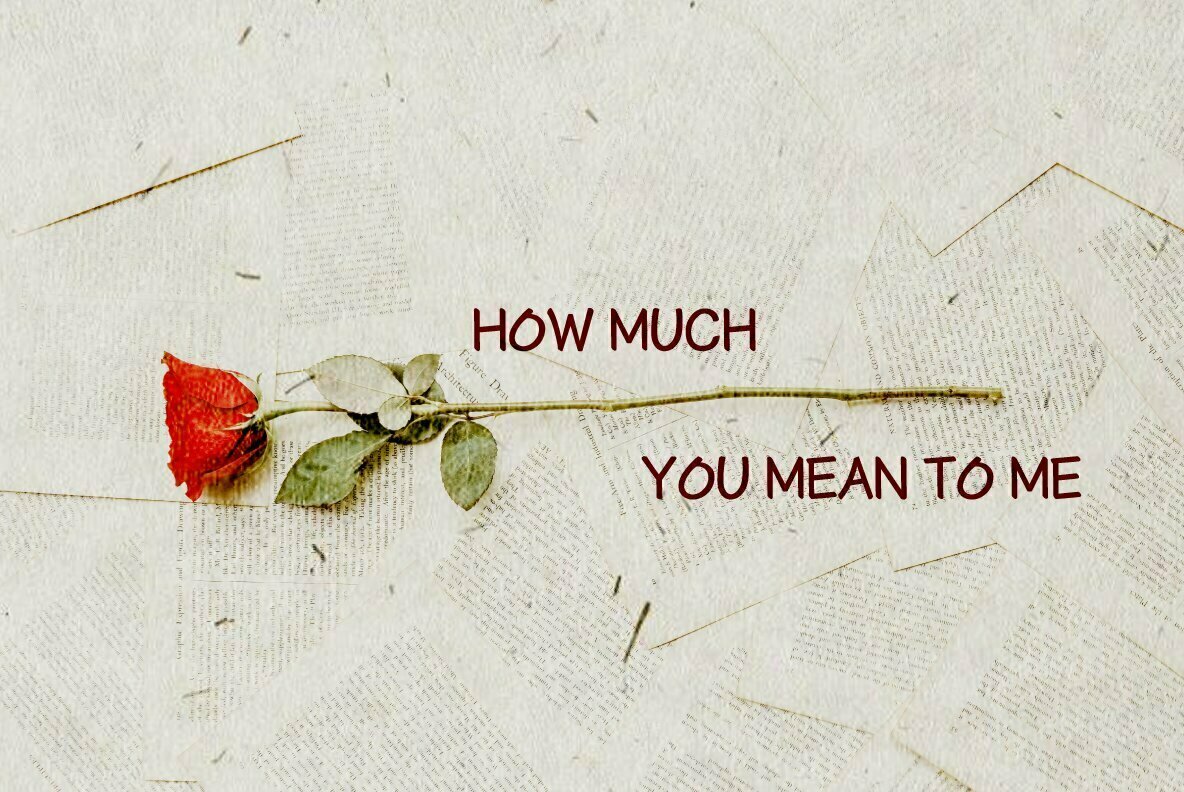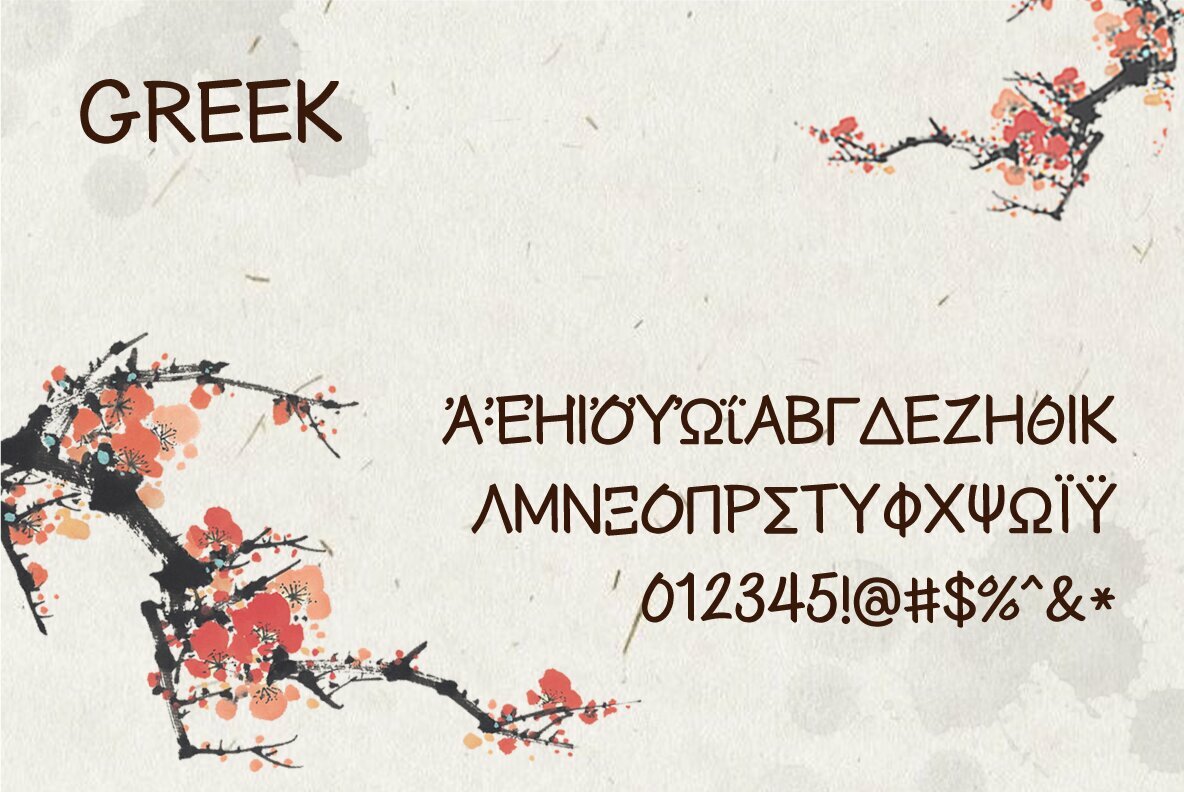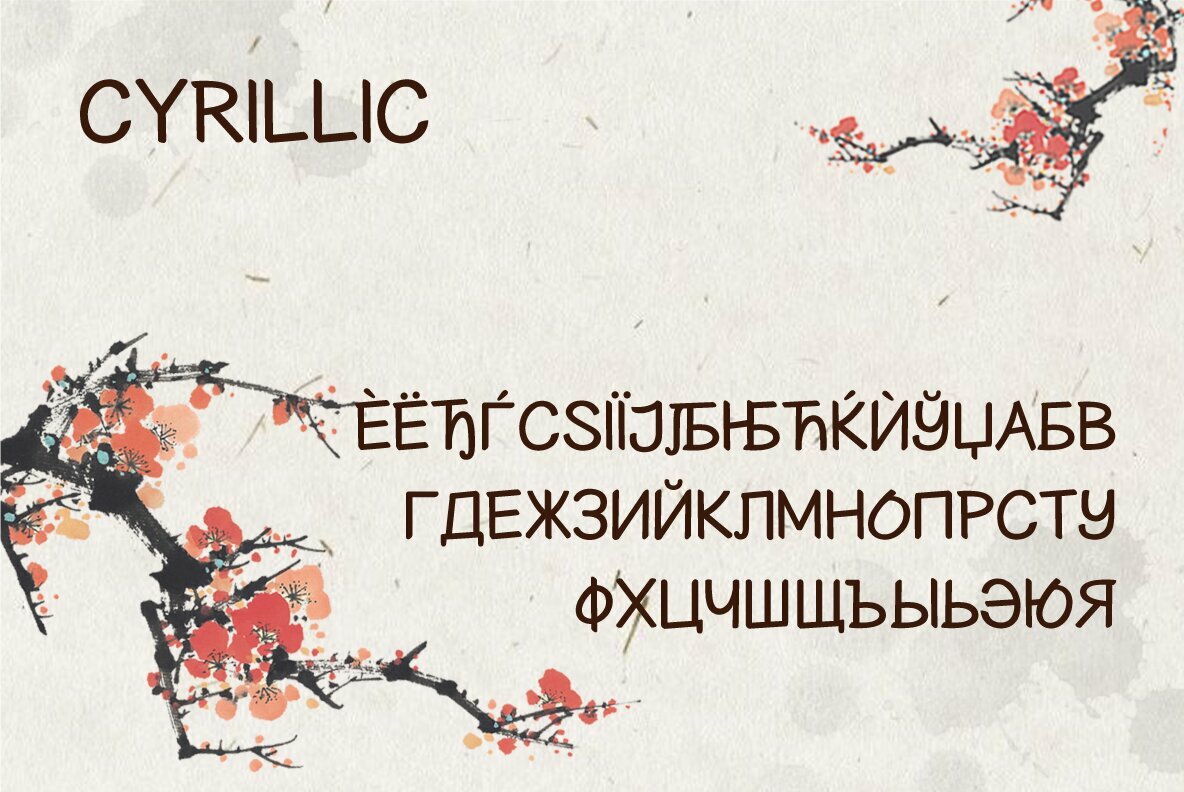
HU Geulwoll Font
HU Geulwoll Medium
Geulwoll means a letter in Korean. HU Glewol is a handwritten font that conveys a calm feeling by creating a lyrical and old atmosphere. In order to emphasize the feeling of writing with a marker, each end is made to fall diagonally, the characteristic of the marker. Also it is a highly readable font with a curve applied to the bent part to save the stroke order.